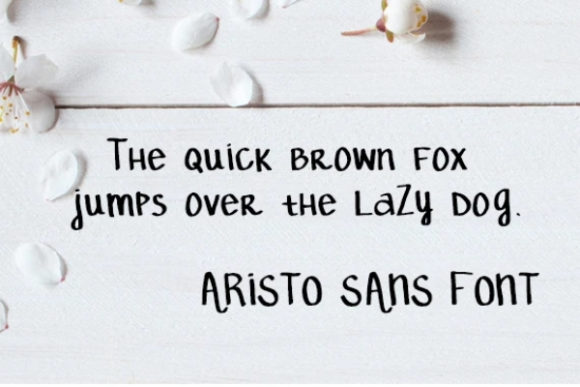
Discover the Charm of Aristo Font: A Cute and Casual Sans Serif for Your Designs
Are you on the hunt for a font that effortlessly combines cuteness with a clean, sans serif aesthetic? Look no further than the Aristo Font. This charming typeface is making waves in the design world with its undeniably clean feel and neat arrangement of letters. Whether you’re crafting a formal document or a playful non-formal design, Aristo is poised to elevate your work with its beautiful and casual vibe.
The Allure of Aristo Font
Aristo’s appeal lies in its simplicity and elegance. As a sans serif font, it eschews the decorative flourishes of serif fonts in favor of a streamlined look that’s both modern and accessible. This makes Aristo incredibly versatile, capable of fitting seamlessly into a wide range of design contexts. From the minimalist elegance of a formal proposal to the playful charm of a children’s book, Aristo brings a level of sophistication and whimsy that’s hard to achieve with more ornate typefaces.
Key Features of Aristo Font
- Cute and Casual Aesthetic: Aristo’s design strikes the perfect balance between being playful and professional. Its cute and casual vibe makes it an excellent choice for designs that aim to connect with a younger audience or convey a friendly, approachable message.
- Clean and Neat: The font’s clean feel is one of its standout features. Each letter is meticulously designed to contribute to a cohesive and harmonious look that enhances the readability and aesthetic appeal of any text.
- Versatility: Aristo’s versatility is one of its most compelling advantages. It can be used in a variety of design projects, from digital content like websites and social media graphics to print materials such as brochures, posters, and business cards.
- Easy to Read: Despite its casual nature, Aristo maintains a high level of legibility. This makes it an excellent choice for body text, headings, and any other application where clarity is key.
Using Aristo Font in Your Designs
- Digital Marketing Materials: Use Aristo for social media posts, email newsletters, and website content to create a friendly and engaging user experience.
- Printed Materials: Aristo shines in print, making it perfect for business cards, flyers, and posters that need to make a clean and professional impression.
- Branding and Logotypes: The unique charm of Aristo makes it an excellent choice for logotypes and brand identities that aim to stand out with a modern yet approachable feel.
Aristo Font is a delightful addition to any designer’s toolkit. Its blend of cuteness, cleanliness, and versatility makes it an ideal choice for a wide range of projects. Whether you’re a seasoned professional or a crafty hobbyist, Aristo offers the perfect combination of style and functionality to bring your designs to life. So why wait? Explore the possibilities with Aristo Font today and discover how this charming sans serif typeface can elevate your work to new heights.